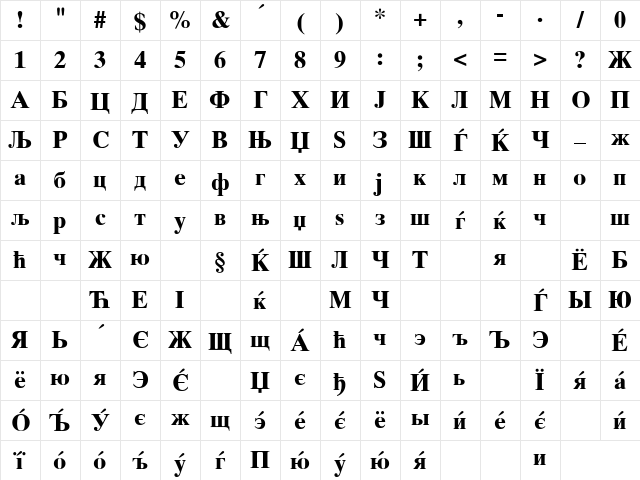
MAC C Times Bold
Design Context for MAC C Times
MAC C Times is a composed and adaptable typeface that performs quietly and consistently across a wide range of design contexts. Its bold stroke weight gives it real presence on the page.